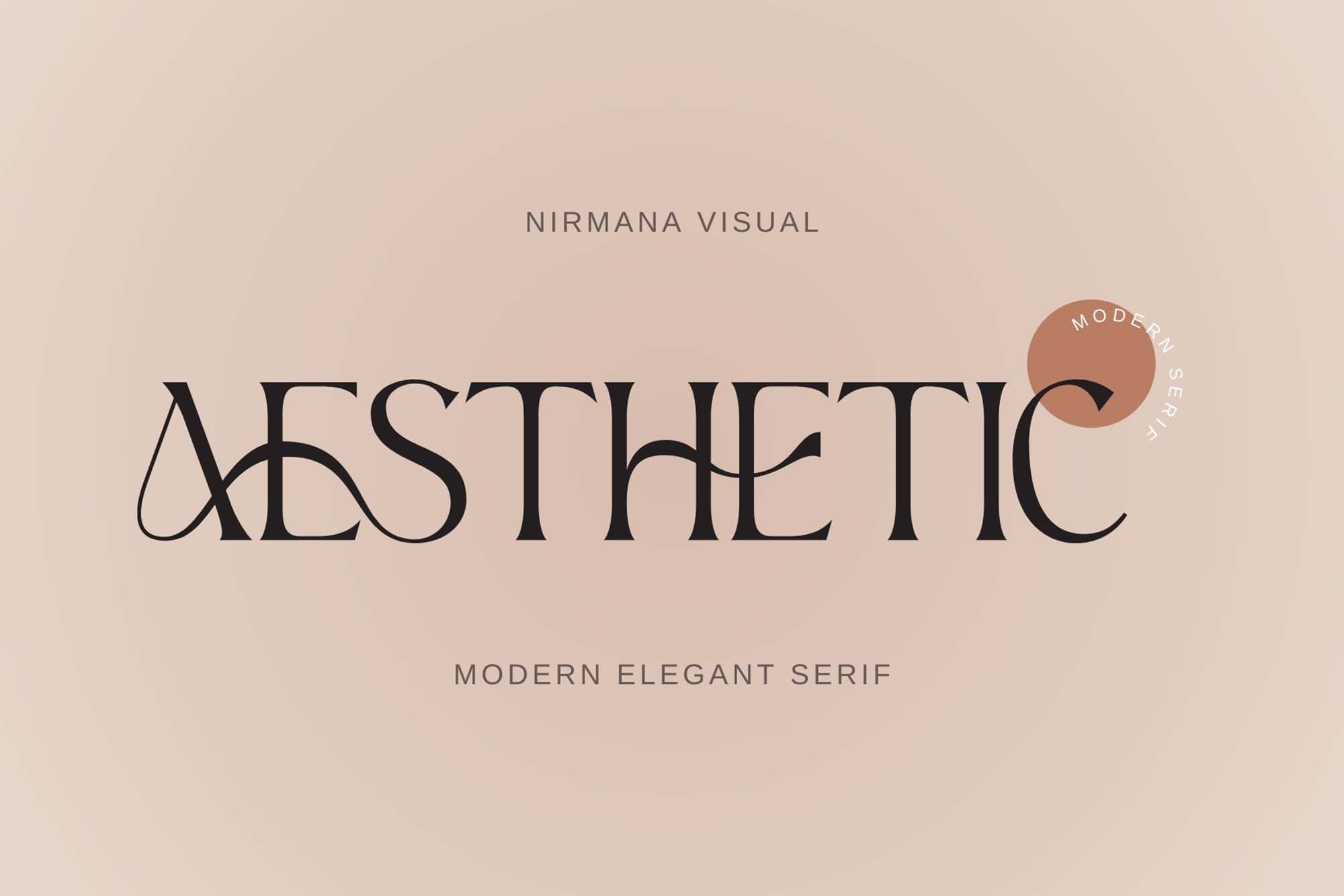
Aesthetic Serif Font – Download Grátis
Aesthetic is a trendy and stylish font that will bring a touch of class to your design creations. The ideal balance between contemporary elegance and tradition in this serif typeface helps to grab attention immediately. This would be a perfect choice for branding your fashion and editorial-related design.